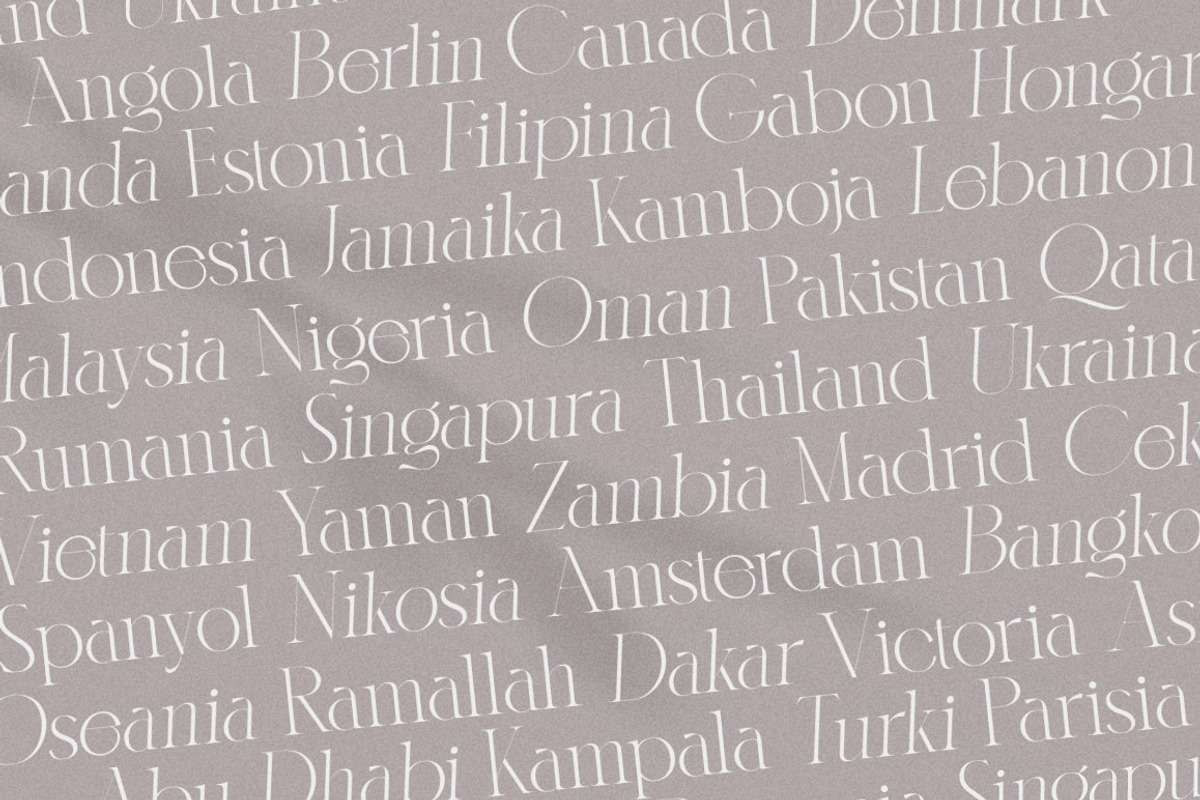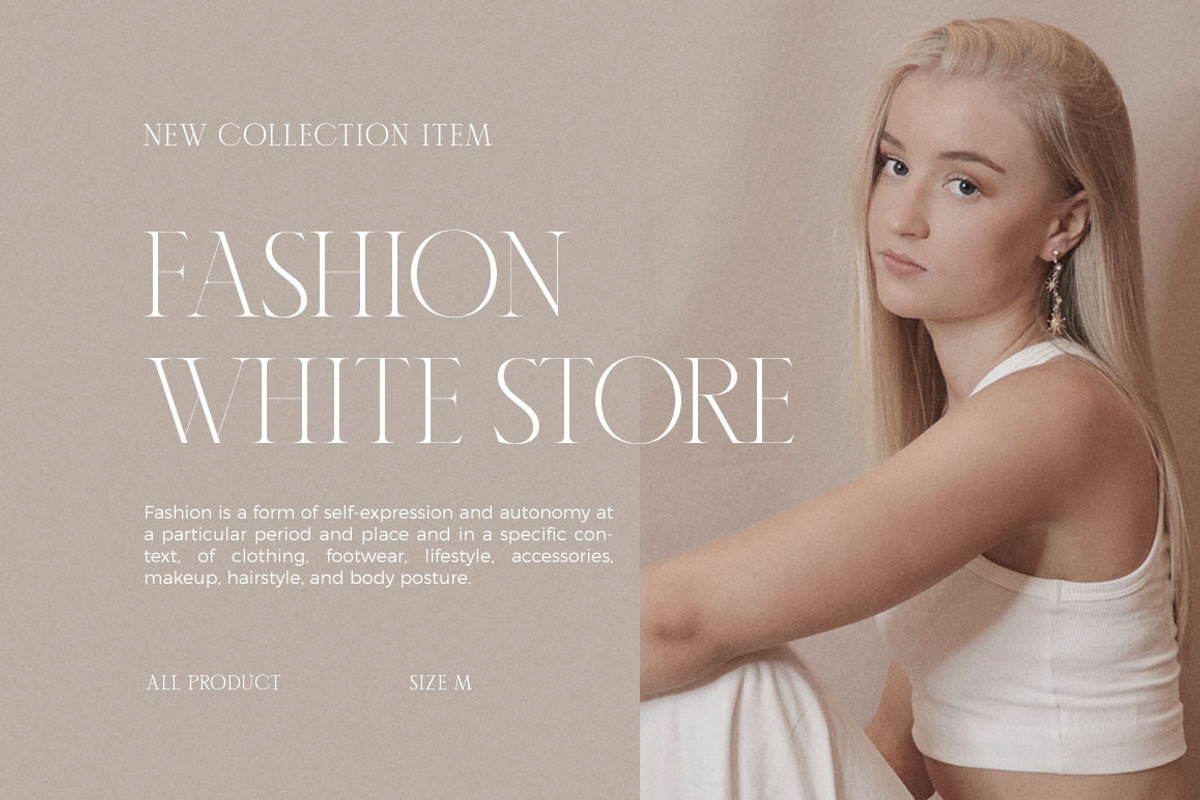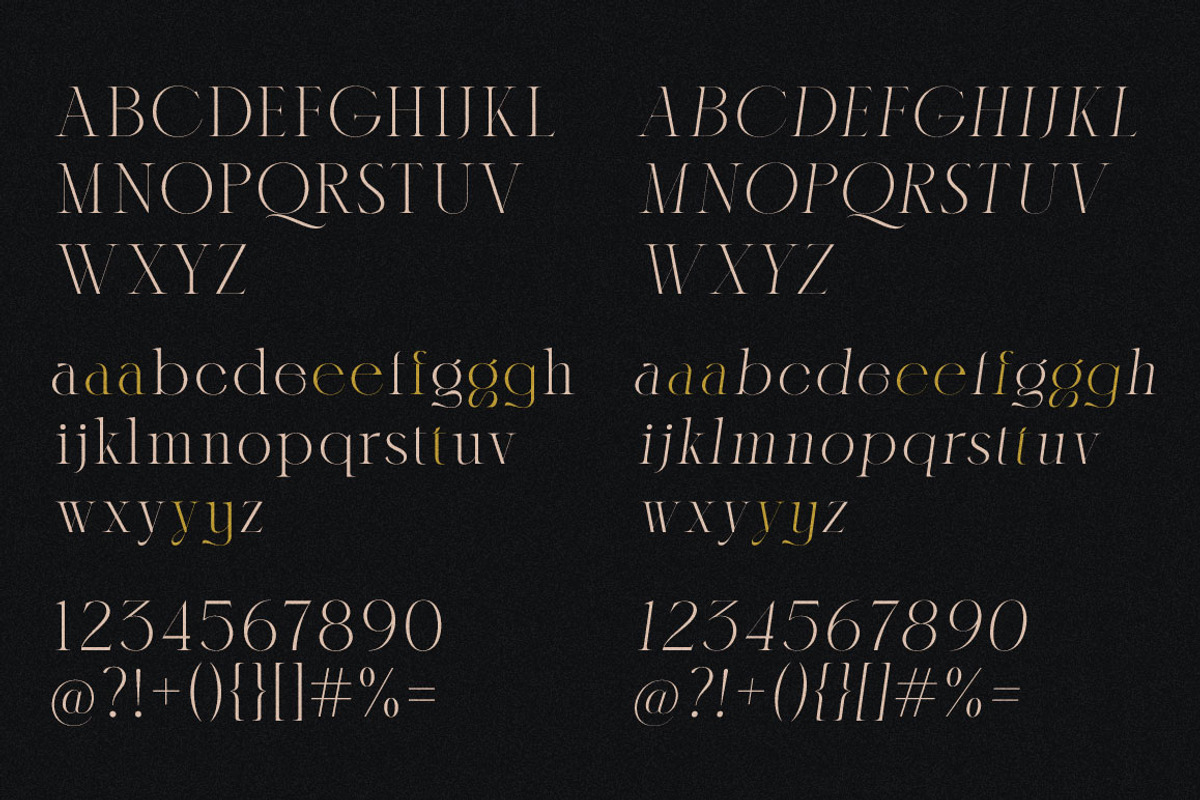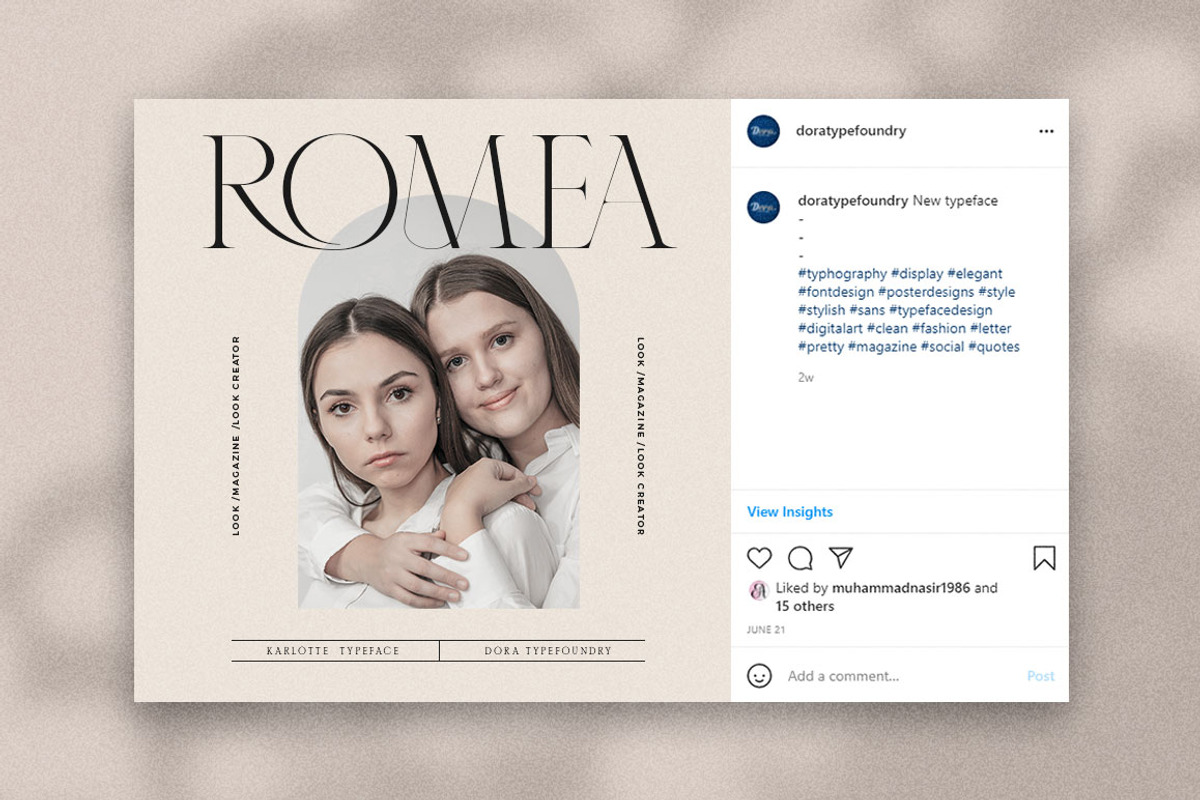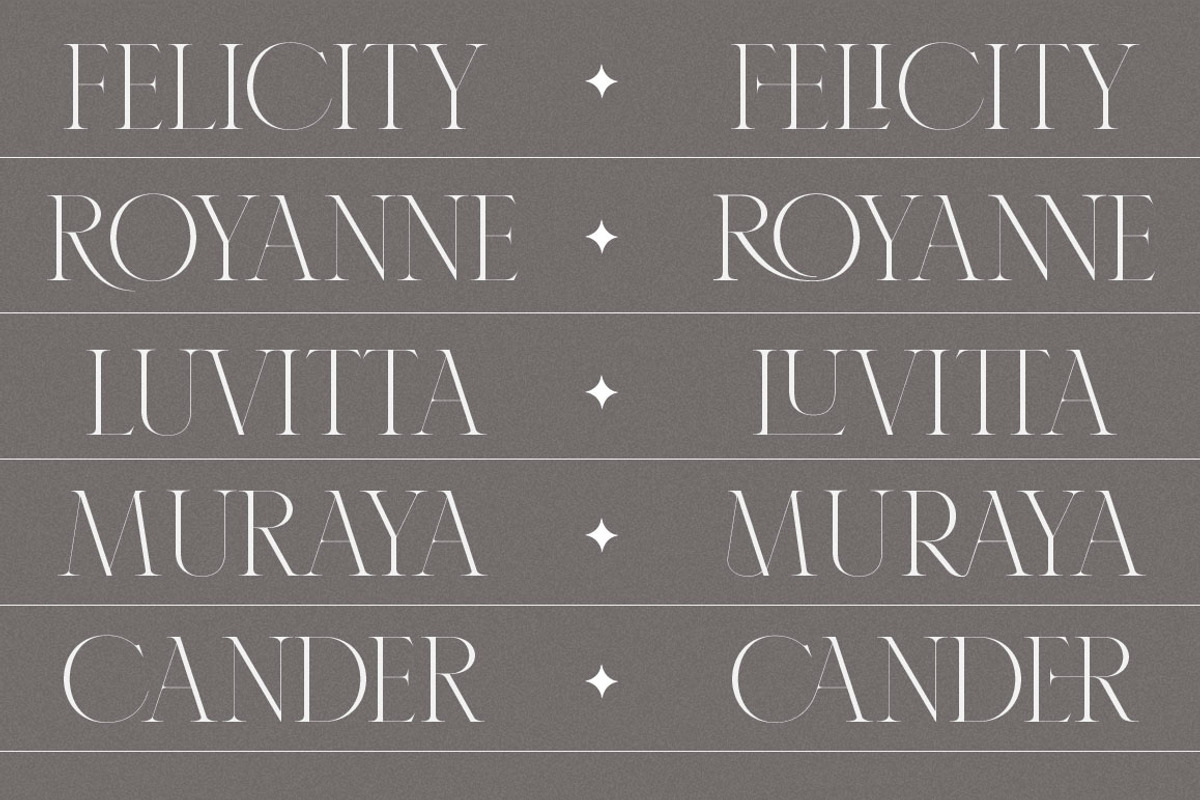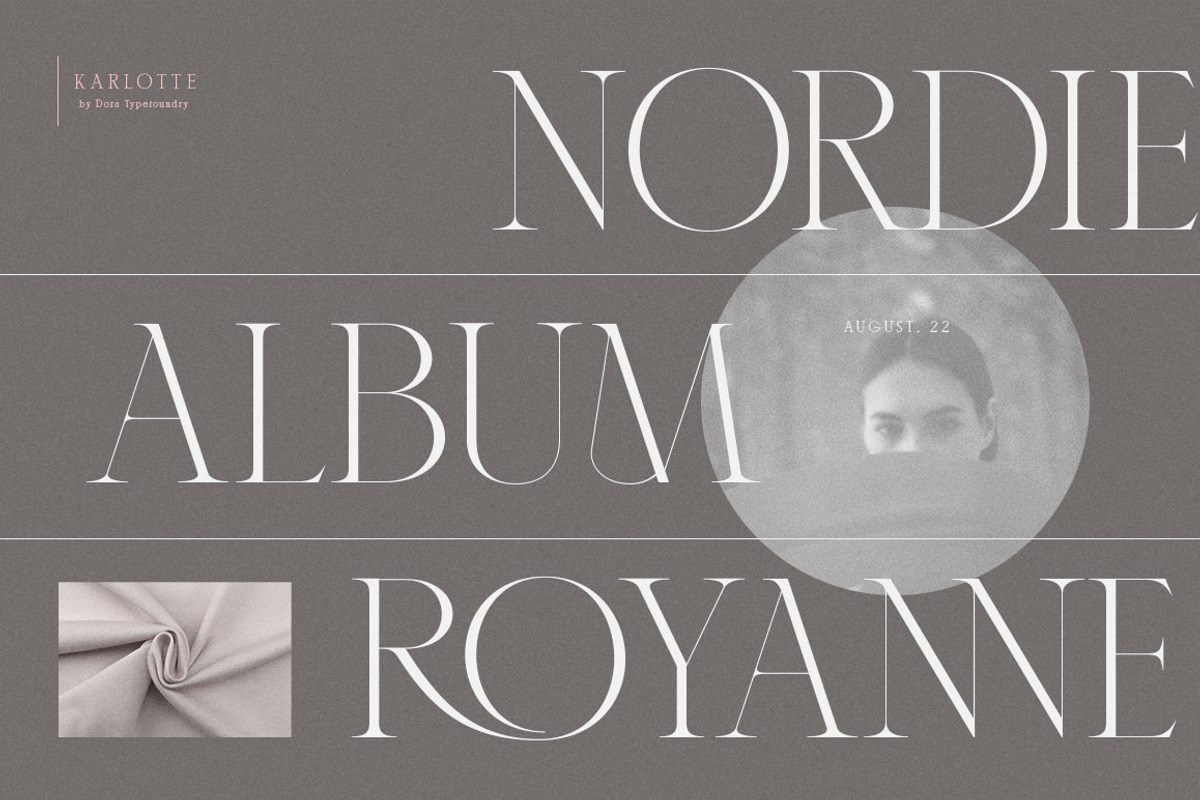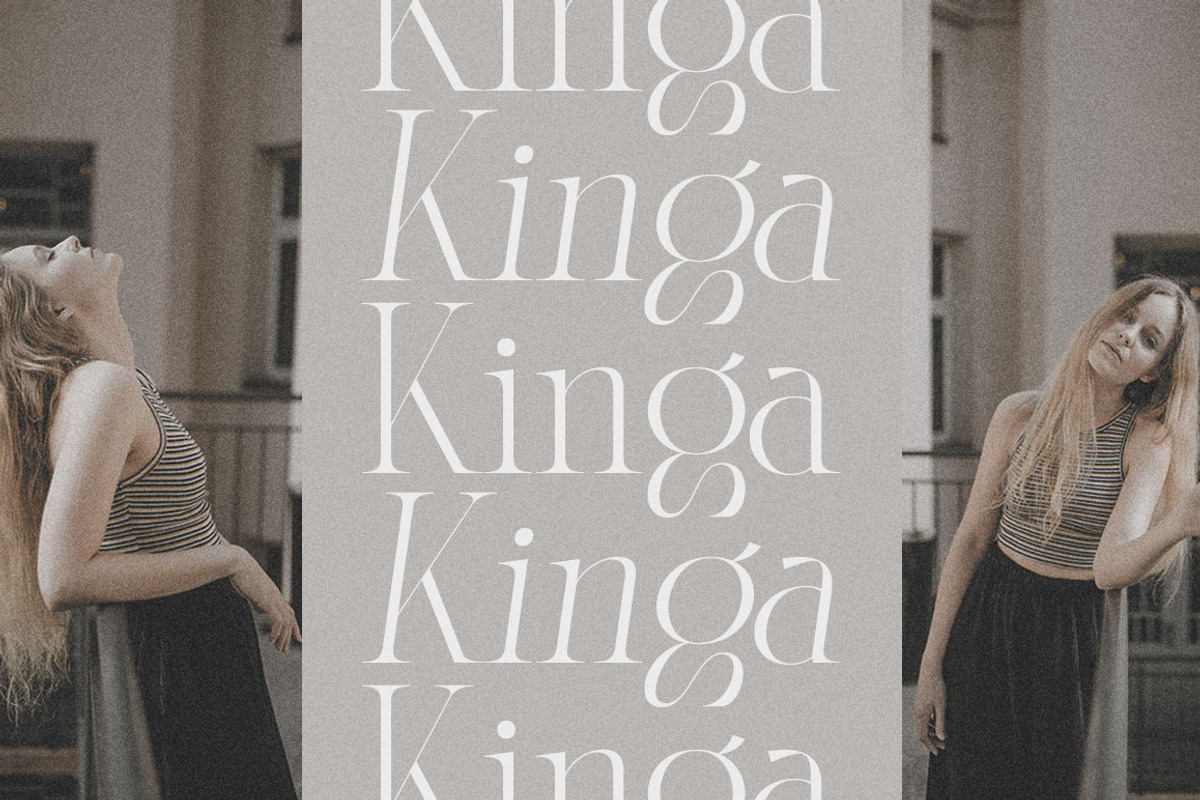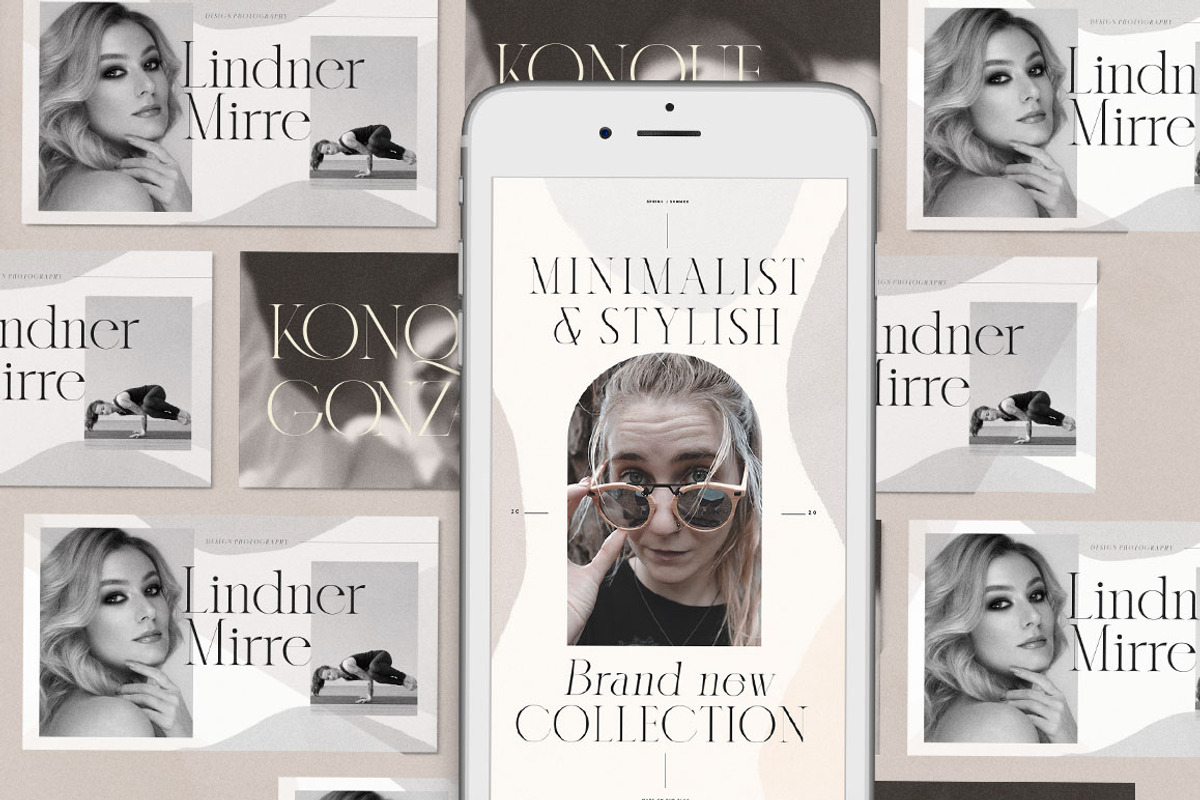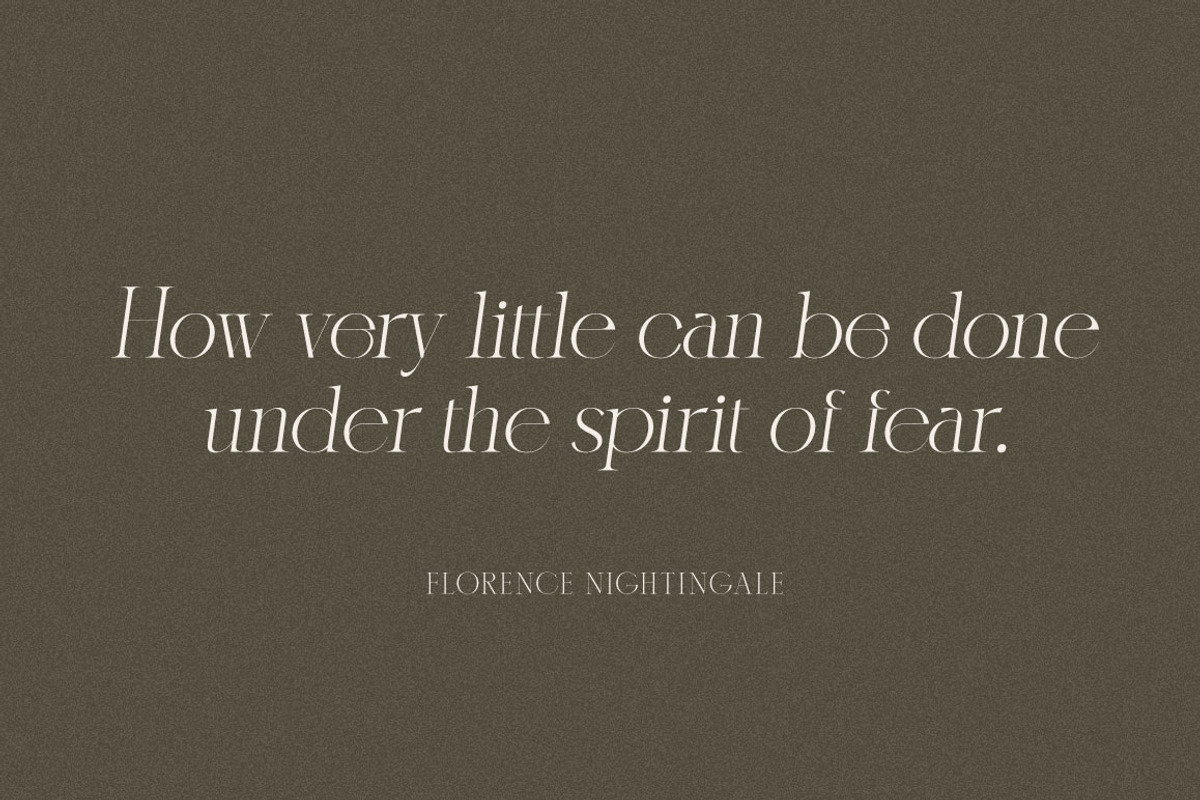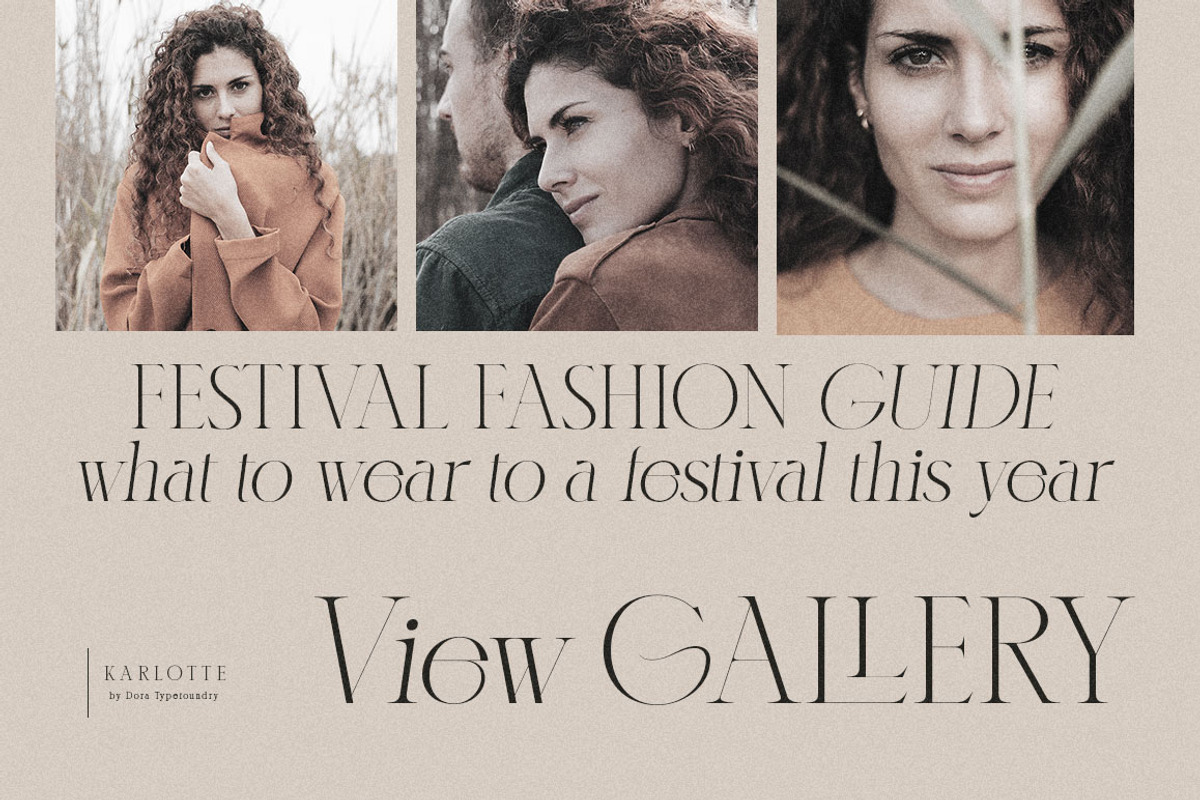
Karlotte - Elegant Serif Font
Introducing,Karlotte is an elegant Modern Serif Font giving a romantic feel to every curve having a smooth edge. This typeface has been carefully crafted to ensure premium quality and a luxurious feel. With 46 Ligatures included, it is a great help in creating the title of any of your projects: such as fashion, magazines, logos, branding, photography, invitations, wedding invitations, quotes, blog headers, posters, advertisements, postcards, books, websites, etc.
• Full set of uppercase, lowercase letters • 56 Ligatures • 20 Alternates • Numbers, symbols & punctuation • Characters with accents • Supports Multiple Languages • PUA Encoded